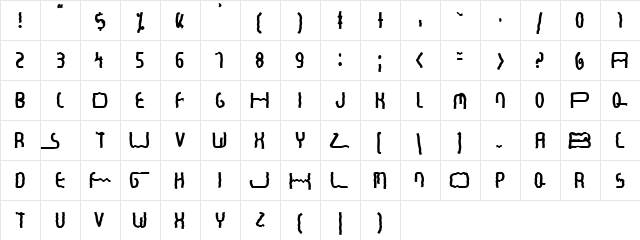
Commerciality Font Preview
Commerciality Commerciality
Commerciality Font Details
| Style | Commerciality |
Design Context for Commerciality Typeface
Commerciality is a composed and adaptable typeface that performs quietly and consistently across a wide range of design contexts.